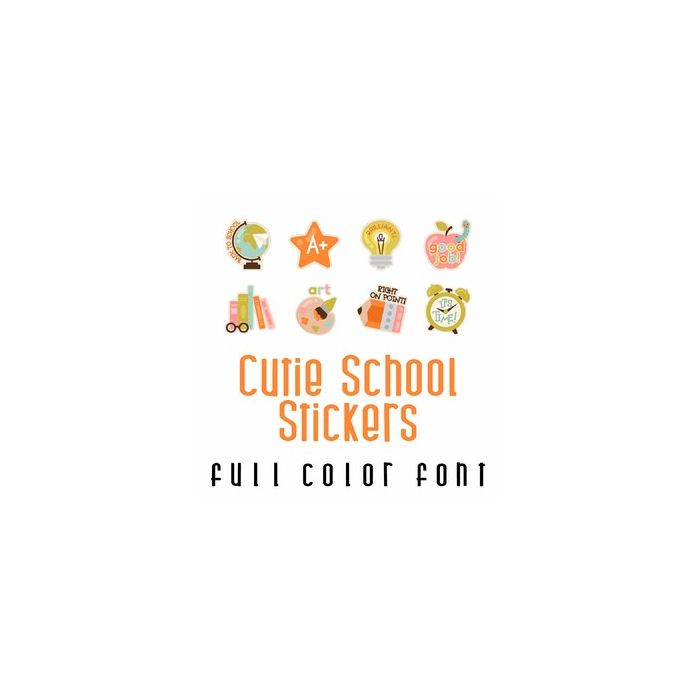
This adorable full-color doodlebat font features 26 fun teacher stickers. Perfect for classrooms, cards, crafts, gifts, decor, scrapbook pages, planner stickers, and more!